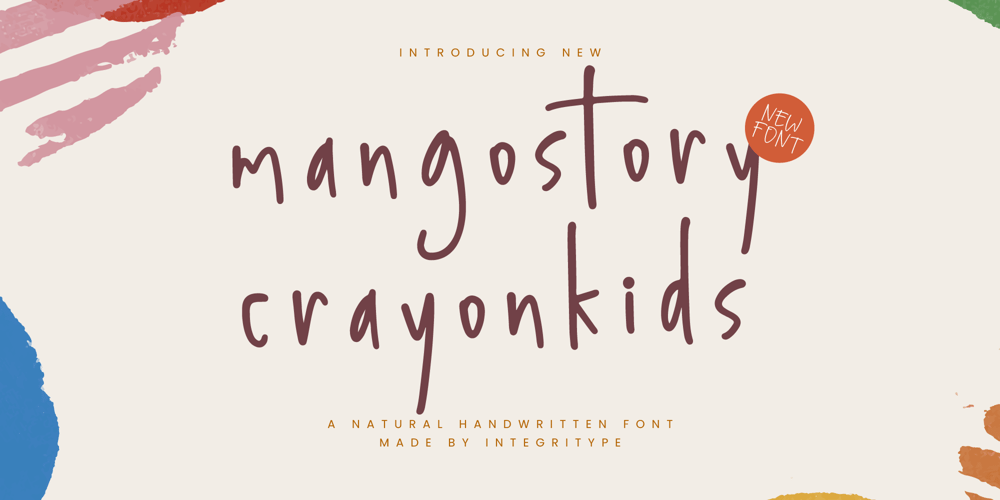
Mangostory Crayonkids Font Family was designed by Ranndy Rizky Febrian and published by Integritype. Mangostory Crayonkids contains 1 styles and family package options. Mangostory Crayonkids – Natural Handwritten Font, from Integritype Studio, perfect for any project like: logos, branding projects, homewares designs, product packaging, mugs, quotes, posters, shopping bags, t-shirts, covers books, business cards, invitation cards, greeting cards, labels, photography, watermarks, special events and all your other luxury projects that require a premium taste.